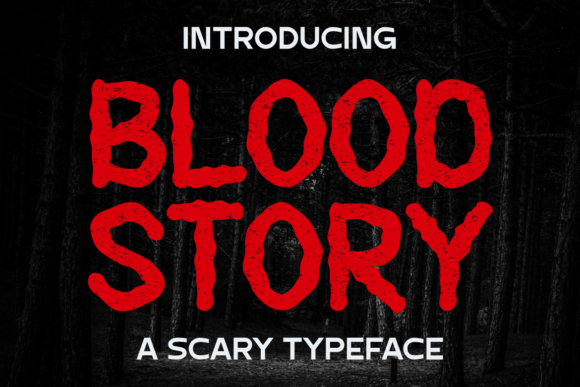
The Spooky Charm of Blood Story Font: A Designer’s Delight
I still remember the year I was tasked with designing a Halloween party invitation that would make people’s skin crawl (in a good way, of course!). I spent hours scouring the internet for the perfect font, but nothing seemed to capture the essence of the spooky season. That was until I stumbled upon Blood Story Font. This display font has been a game-changer for my Halloween designs ever since, and I’m excited to share its charm with you.
An Honest Review of Blood Story Font
So, what makes Blood Story Font so special? Here are a few things I love:
• ✨ Its eerie, mysterious vibe is perfect for creating a spooky atmosphere
• ✅ The font’s distressed texture adds a level of realism to your designs
• 💀 The character set is extensive, with plenty of glyphs and stylistic alternates to play with
• 🎃 It’s incredibly versatile, making it suitable for a wide range of Halloween-themed projects
Of course, no font is perfect, and Blood Story Font has a few quirks:
• 🤔 Some characters may appear a bit cramped or uneven, which can make it tricky to use for body text
• ⚠️ The font’s distressed texture can be a bit overpowering if not used thoughtfully
The Backstory Behind Blood Story Font
Legend has it that Blood Story Font was created by a mysterious designer who wanted to capture the essence of Halloween celebrations. Inspired by old horror movies, creepy abandoned houses, and the supernatural, this font is the perfect embodiment of the spooky season. Whether or not this story is true, one thing is certain: Blood Story Font is a design gem that’s sure to cast a spell on your audience.
Font Name Blood Story Font
Author maikofarazhatta
What type of projects is Blood Story Font best suited for? Halloween-themed projects, such as party invitations, posters, merchandise designs, greeting cards, warning signs, and website designs.
Is Blood Story Font available in different weights or styles? Currently, Blood Story Font is available in a single weight, but it does feature stylistic alternates and glyphs for added versatility.